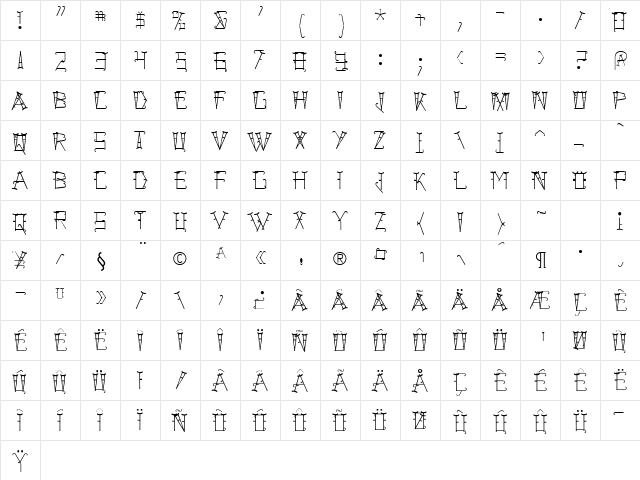
CrippledFont Regular
Design Context for CrippledFont Typeface
CrippledFont is a composed and adaptable typeface that performs quietly and consistently across a wide range of design contexts.